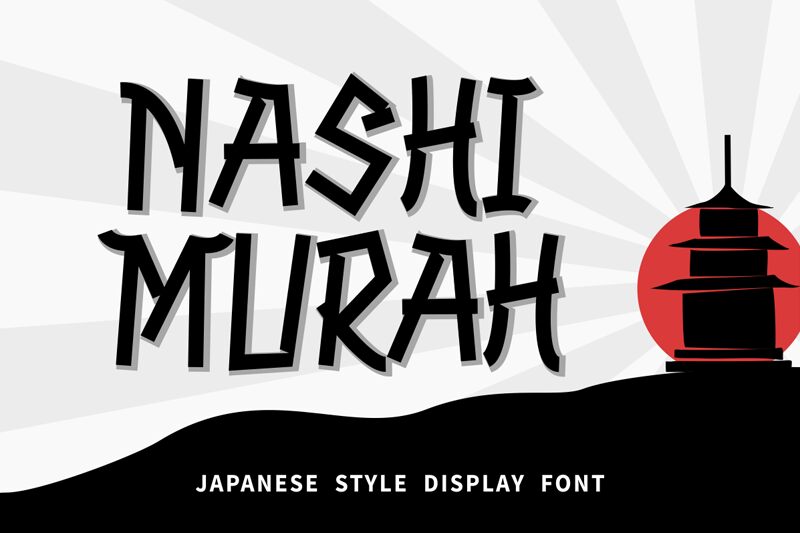
Nashi Murah font family is a unique free foreign style typeface designed by GFR Creative that delivers an energetic and contemporary style. The font comes in 2 styles, both sharing a similar spirit that combines a bold angular style with a modern aesthetic appeal that transmits a foreign cultural influence.
The attentive eye will find the Nashi Murah font family interesting when used in projects with a bold character. Important websites and mobile apps like Facebook, Instagram, and TikTok influencers will prove great for it when used in art, blogs, and video presentations. It’s perfect in printed media such as newspapers, magazines, and journals too. Identity designers, branding, poster designers, and many others should make sure to experiment with it.